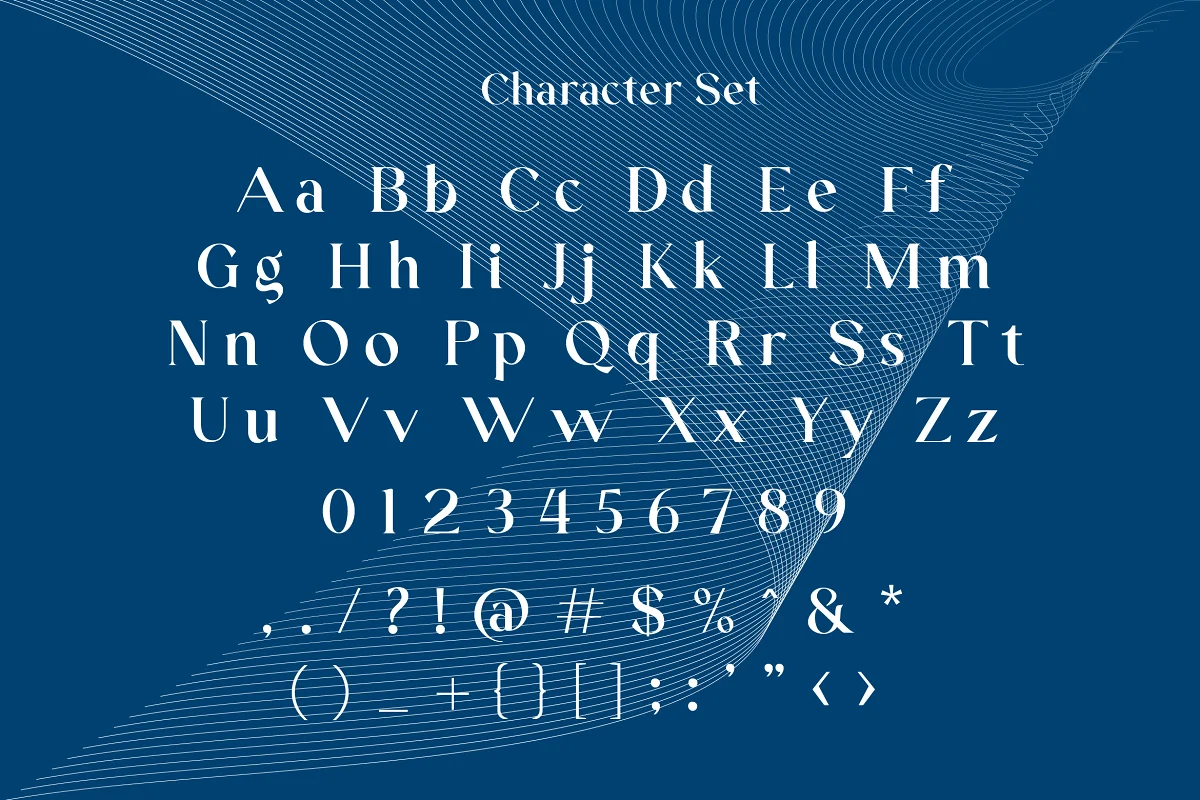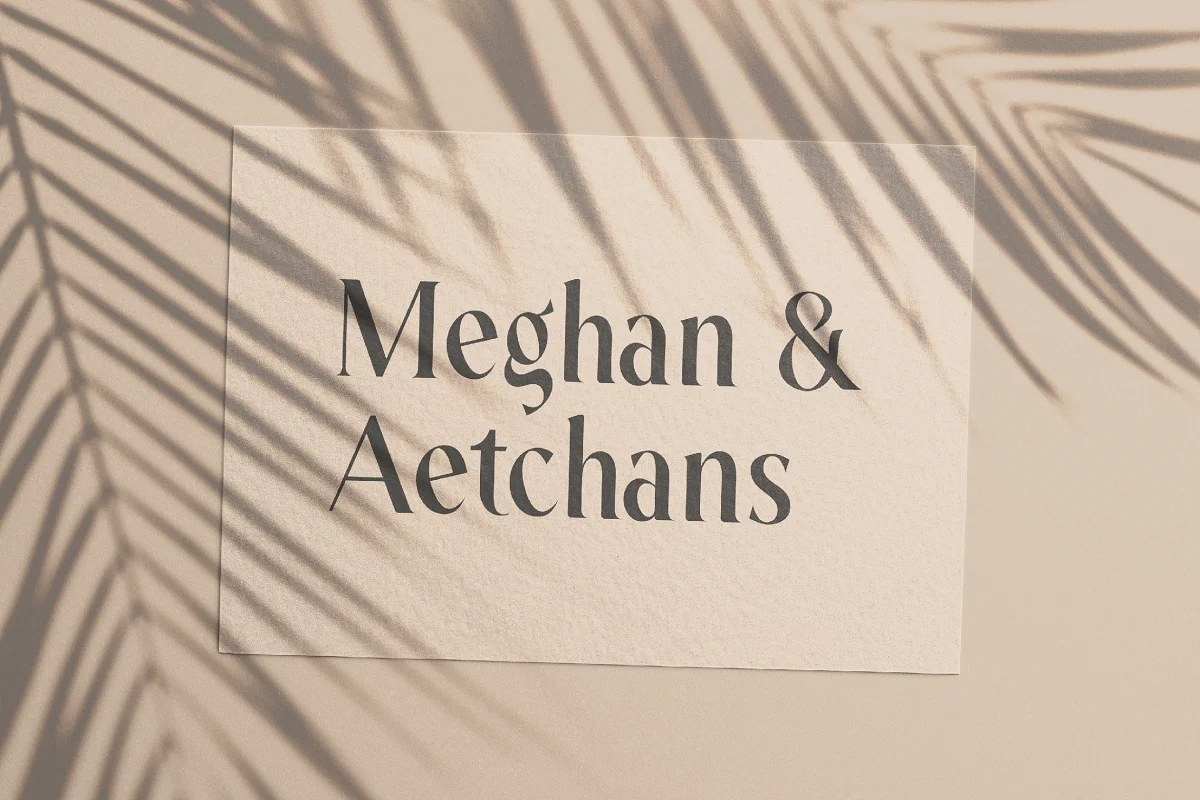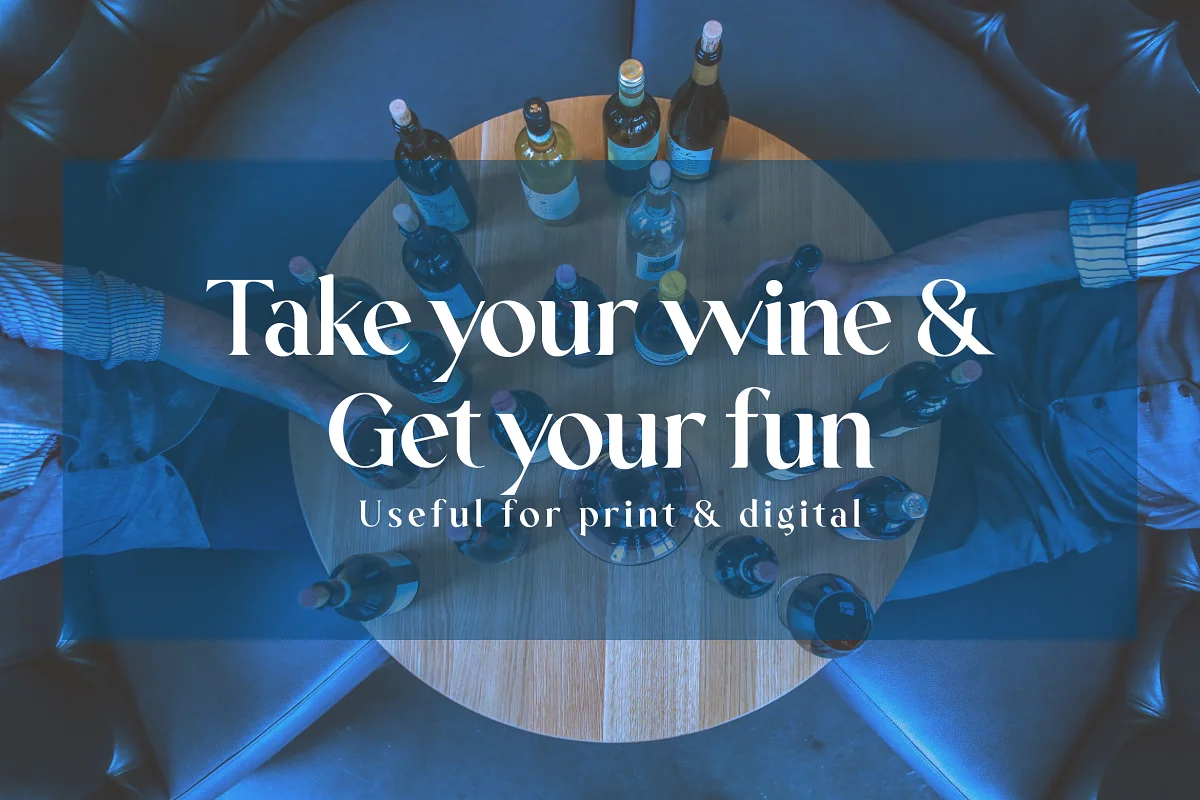
About the Glamourn Display Font
Introducing Glamourn Serif this is a display font useful for print or digital products, this font has a unique style and elegant design.